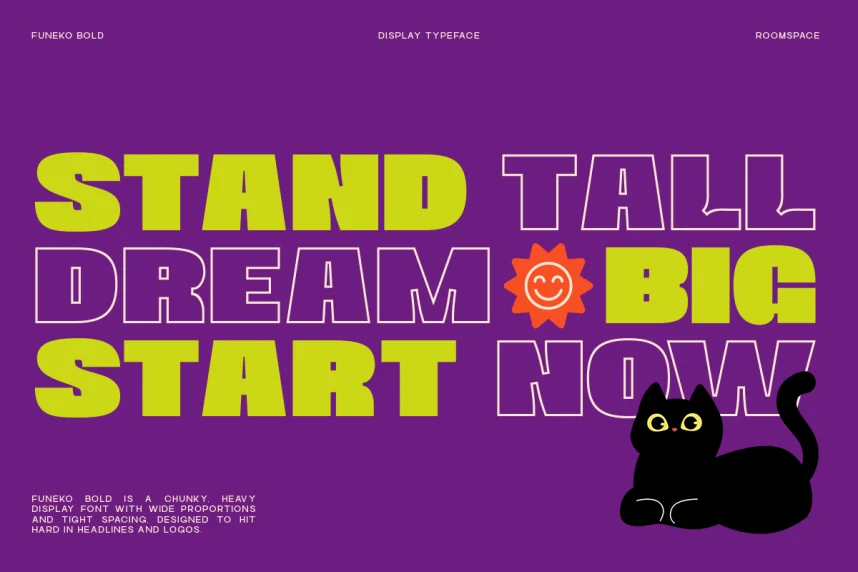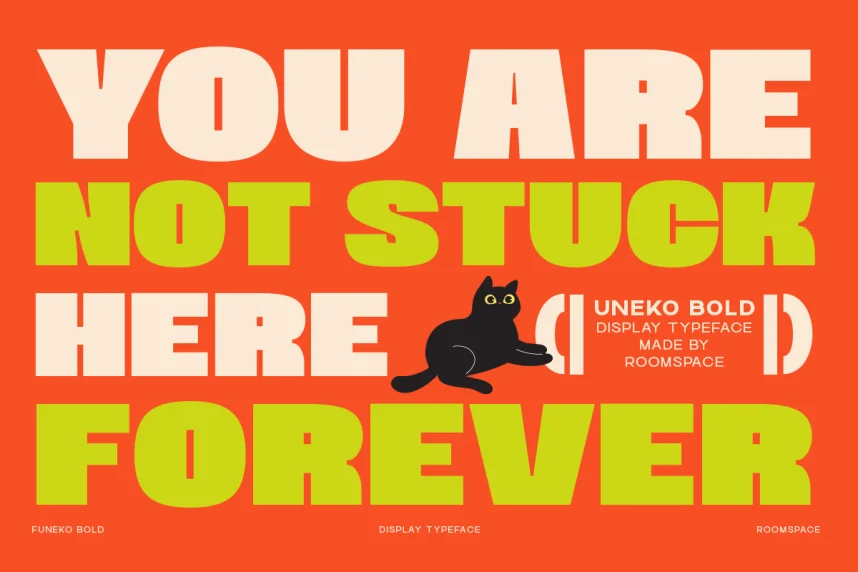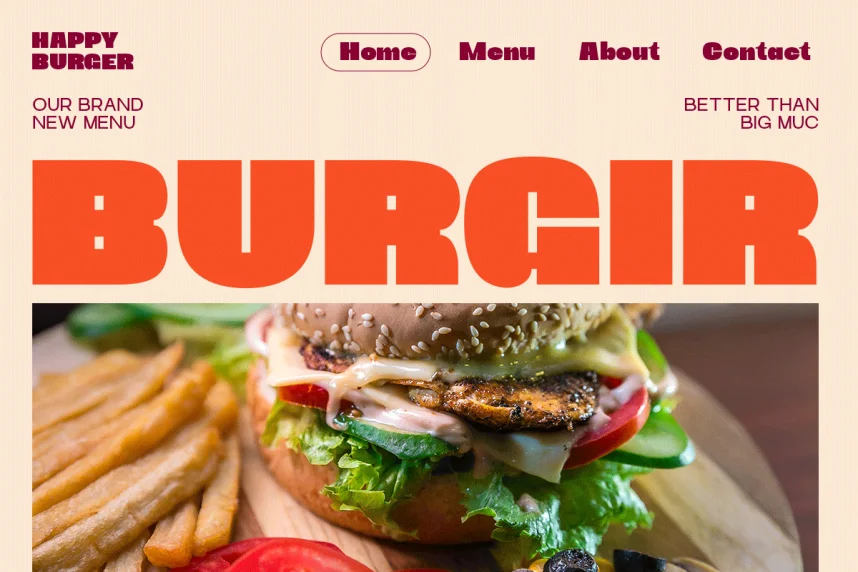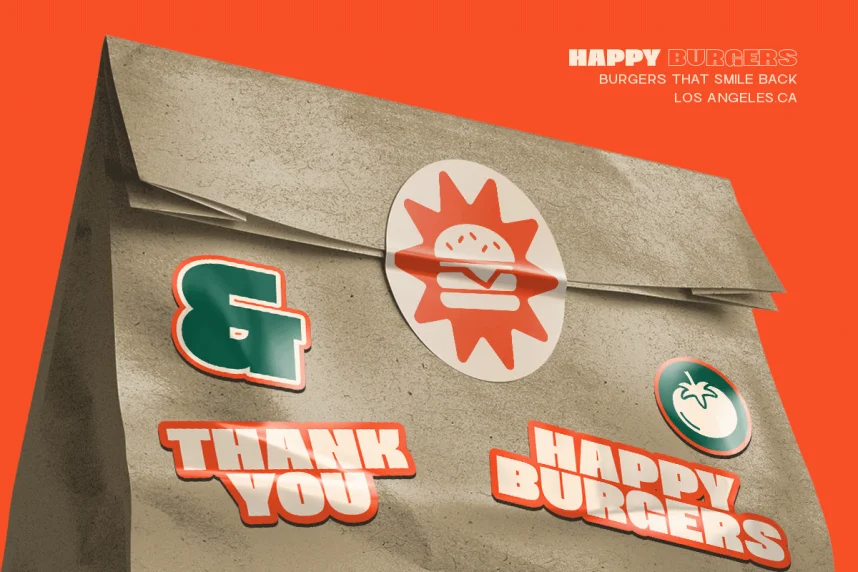
Uneko Bold Font is a sans-serif display typeface designed to enhance visual impact while maintaining clarity. It addresses common challenges in headings, logos, and digital graphics where strong readability and consistent weight are critical. Uneko Bold’s uniform stroke width and geometric letterforms provide a modern, minimal aesthetic suitable for branding, signage, and social media content.
The font includes clean terminals, open counters, and well-defined spacing, ensuring legibility at both small and large sizes. Its bold weight is ideal for creating hierarchy and emphasis in web design, email signatures, advertisements, and editorial layouts. Designers often pair Uneko Bold with lighter sans-serif or serif fonts to balance text composition.